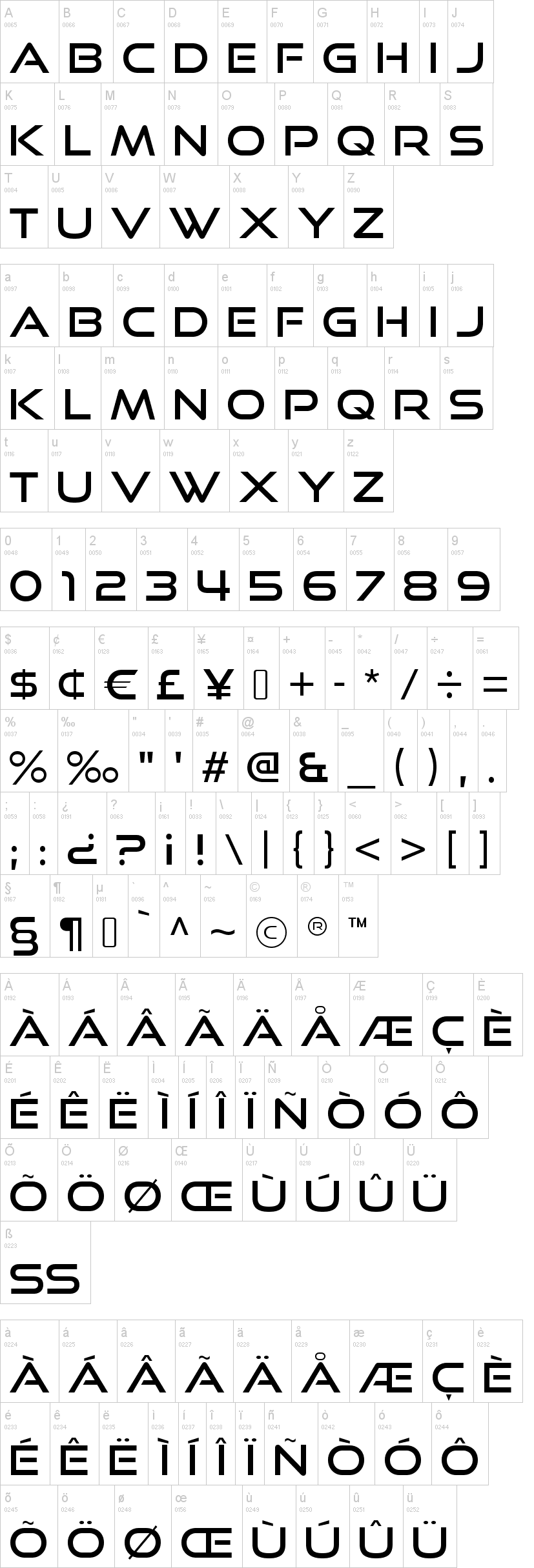
Шрифт Good Times
Good Times was originally created in 1998 and has been overhauled a decade later. Accents cover more languages. Good Times now includes fractions & numeric ordinals.